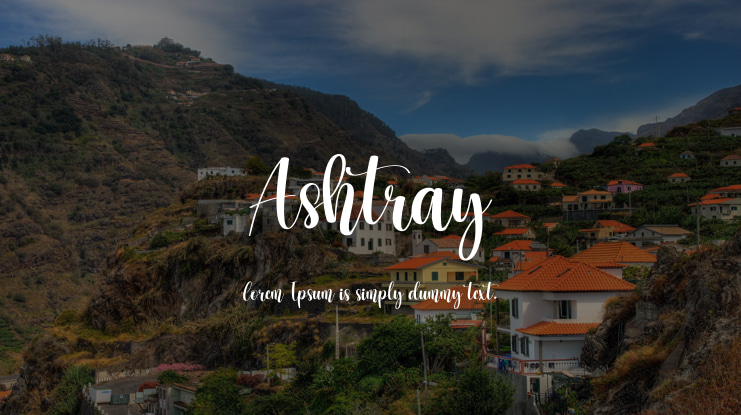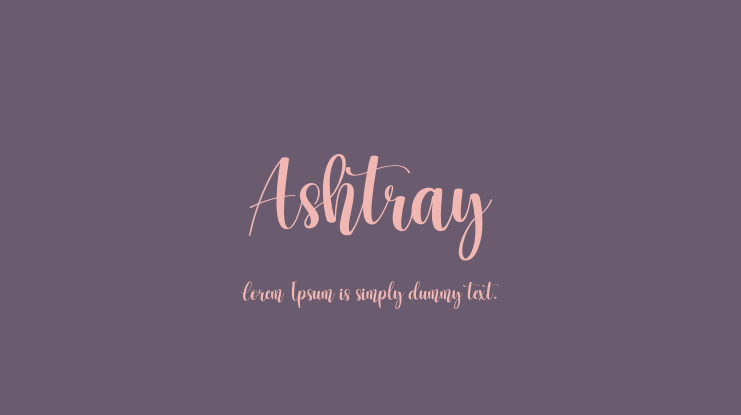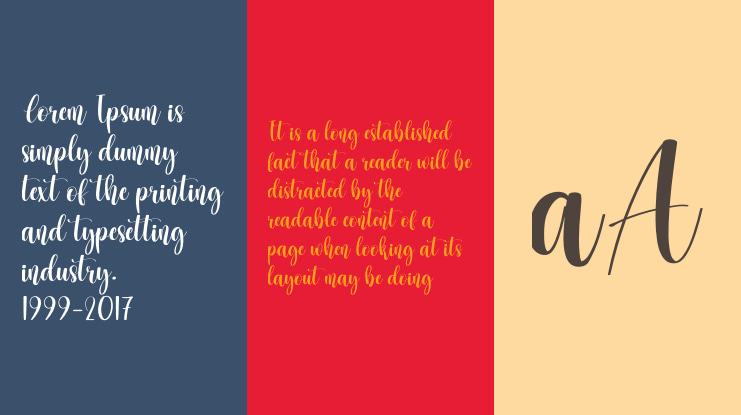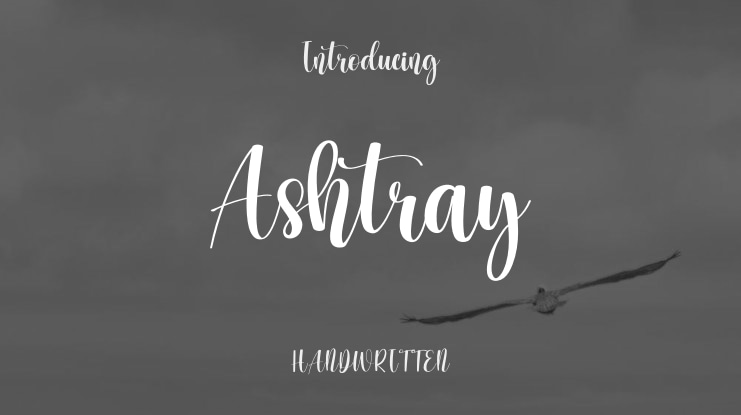
Ashtray Font
This stylish font combines classic calligraphic elements with a modern and fresh feel. Its flexibility makes it perfect for a variety of creative projects, such as letterheads and stationery.